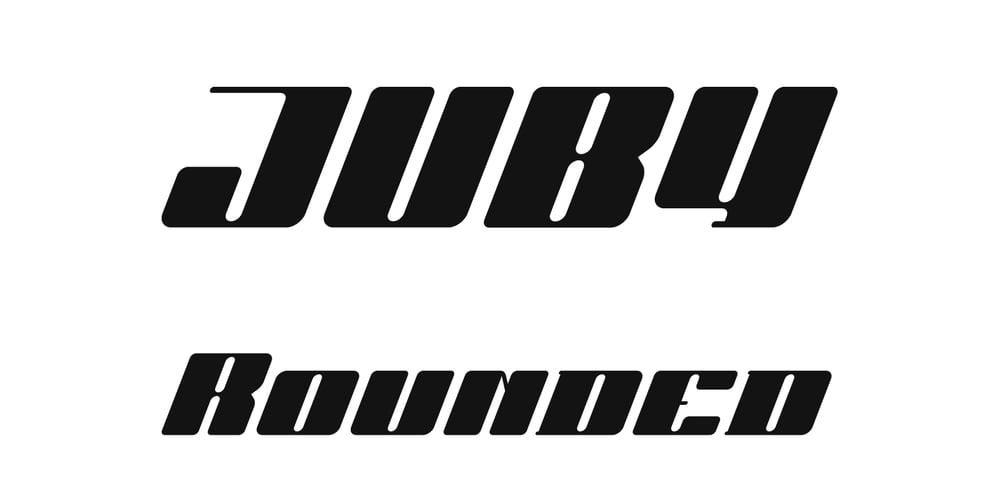
Juby Rounded
Juby Rounded font
Juby Rounded Font Family was designed by Bartosz Panek and published by Fontsphere. Juby Rounded contains 6 styles and family package options. Juby Rounded – Heavy, visible and distinctive display font, rounded brother of the Juby Font.Designed especially for display purposes. Can be used successfully in posters, headlines, visual identities, and everything needs to stand out.Font containing uppercase and lowercase characters, numerals and a large range of punctuation.The family has 3 weights with matching italics.